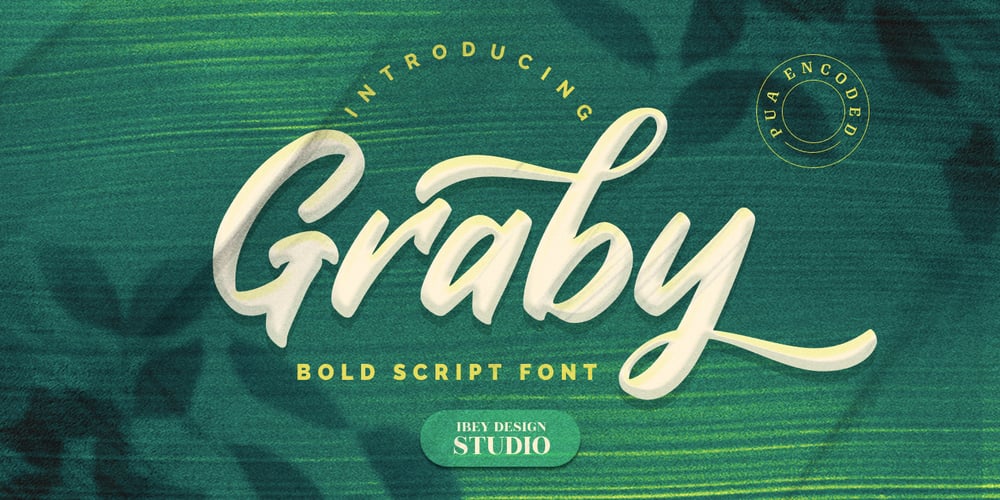
Graby Font Family was designed by Ikrar Bey Khubaib and published by IbeyDesign. Graby contains 1 styles and family package options. Graby Bold Script Font feels equally charming and elegant. It looks stunning on wedding invitations, thank you cards, quotes, greeting cards, logos, business cards, and every other design which needs a handwritten touch.